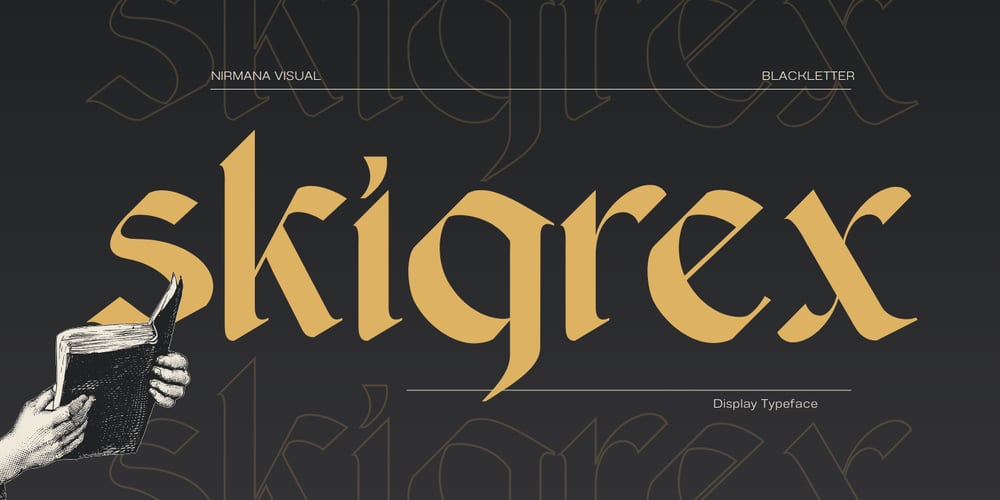
Skrigex Gothic
Skrigex Gothic font
Skrigex Gothic Font Family was designed by Sigit Dwipa and published by Nirmana Visual. Skrigex Gothic contains 1 styles and family package options. Introducing Skrigex Gothic, Blackletter Style features sharp angles, bold vertical lines, and intricate detailing.Skrigex Gothic continues to evoke a sense of historical gravitas and artistic flair in modern design, calligraphy, and branding.